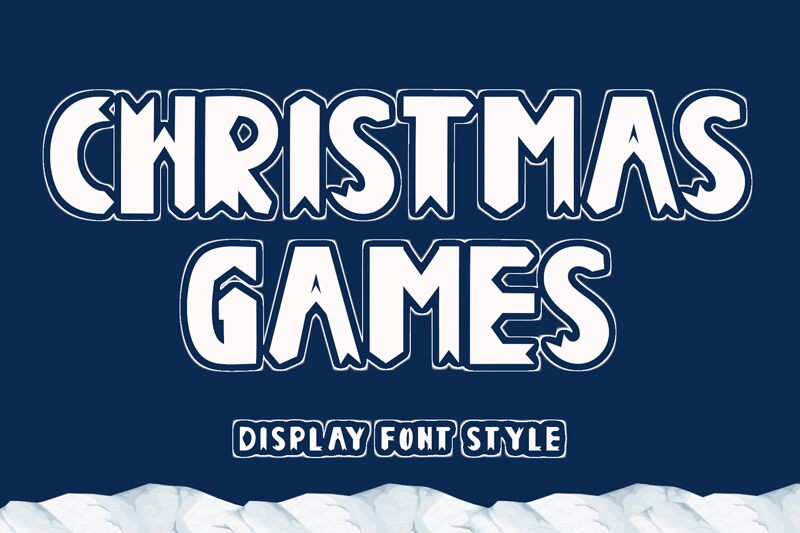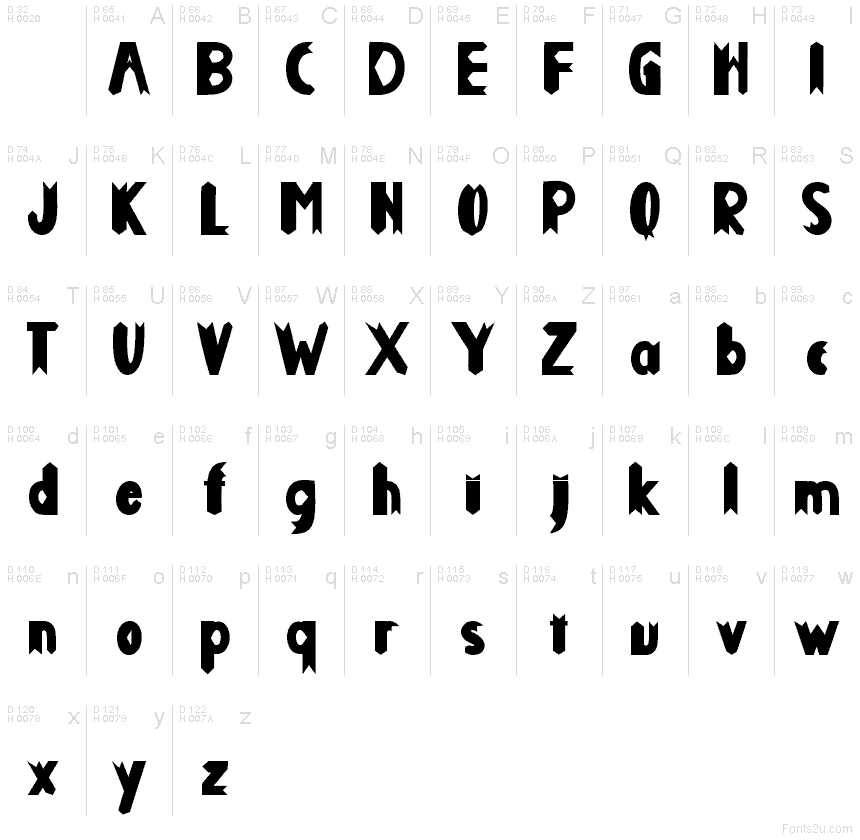
Christmas Games
Christmas Games font by Yoga Letter is a free holiday Christmas typeface with the feel of hand-cut paper letters hung across a frosty window. Chunky shapes, softly rounded corners, and playful notches give it a cozy, homemade look—like a mix of craft night and storybook titles. The letters pack inky-black weight without feeling stiff, so they stay readable while still bursting with festive character.
Using Christmas Games, you can splash instant cheer onto gift tags, greeting cards, party invitations, classroom printables, Advent calendars, or seasonal social graphics. This free font shines at larger sizes where its bold curves and quirky edges can really show. Pair it with a simple sans serif for body text, and let Christmas Games handle the headlines, banners, and word art that need to feel warm, fun, and unmistakably Christmassy.